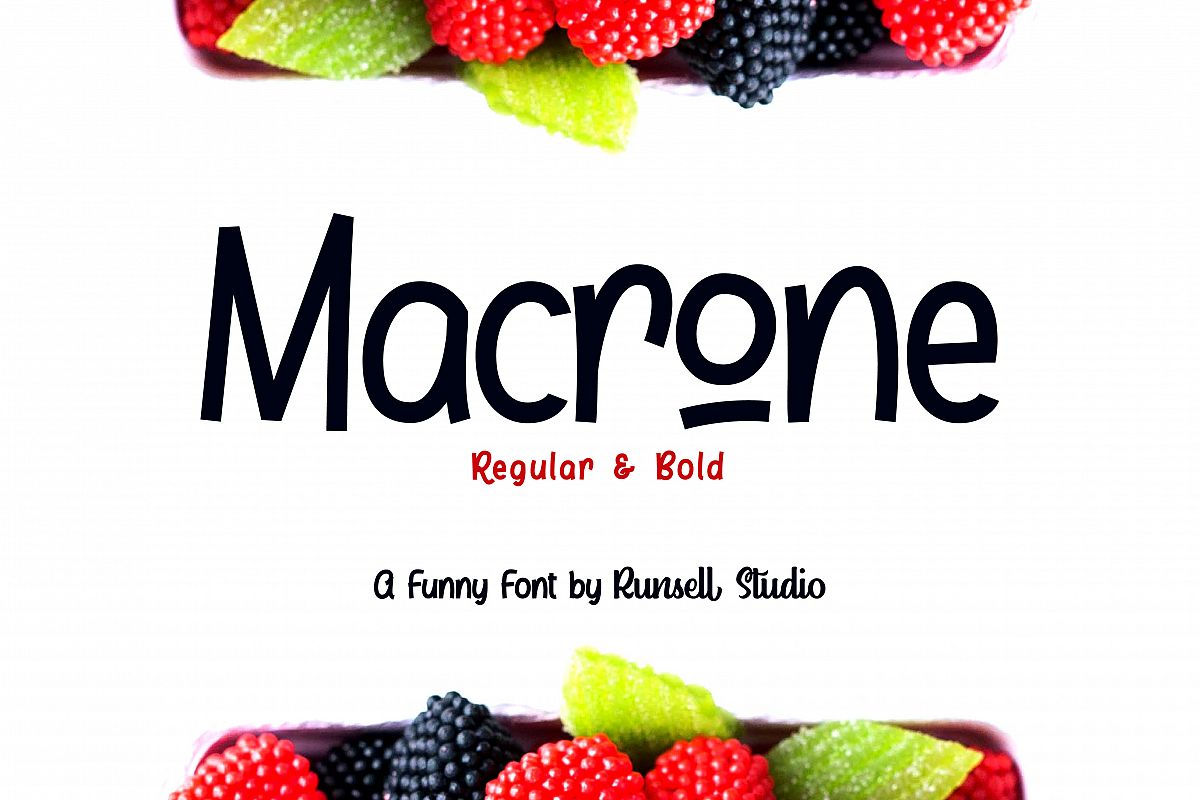
Macrone is a typeface with funny style. Macrone is great for logotype, typography, poster, printed quotes, invitations, cards, product packaging, headers, letterhead, apparel design, label, and etc.
Macrone comes with uppercase, lowercase, numerals, punctuation, multilingual characters.
Features :- Stylistic Alternate
- Ligature